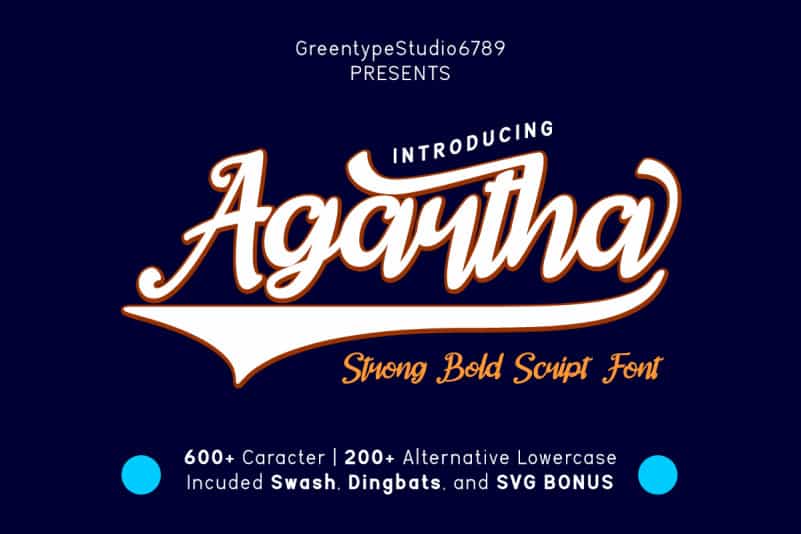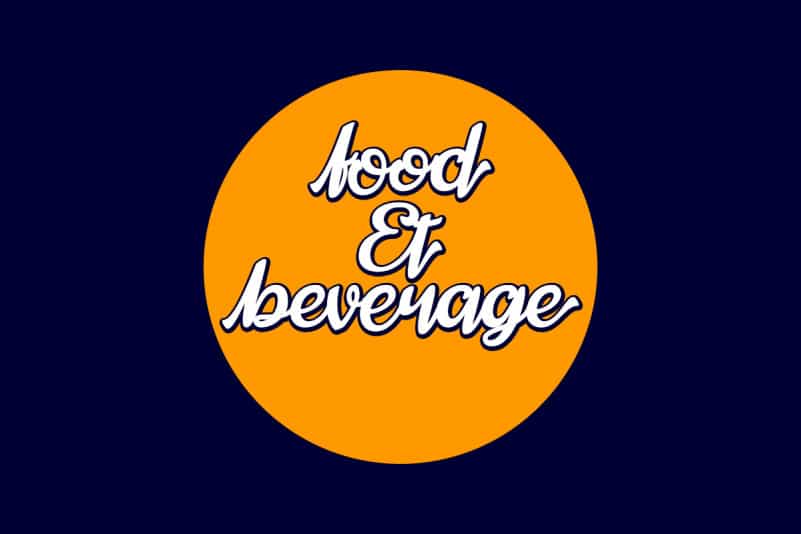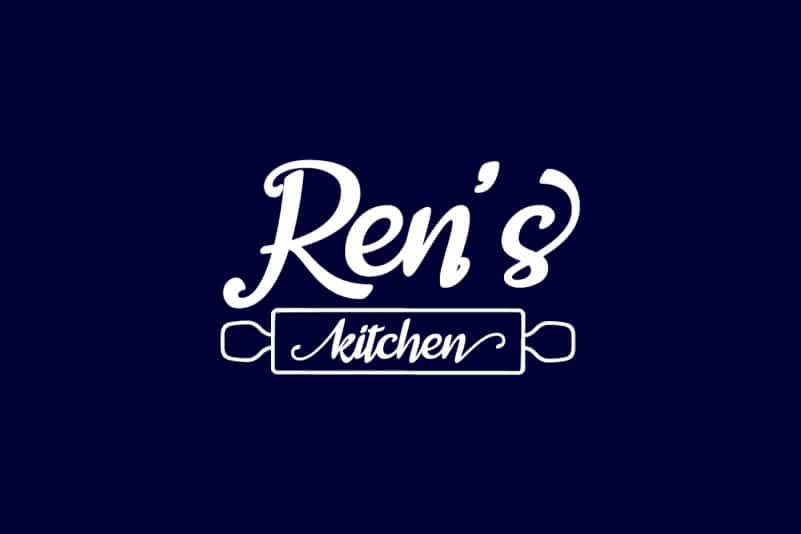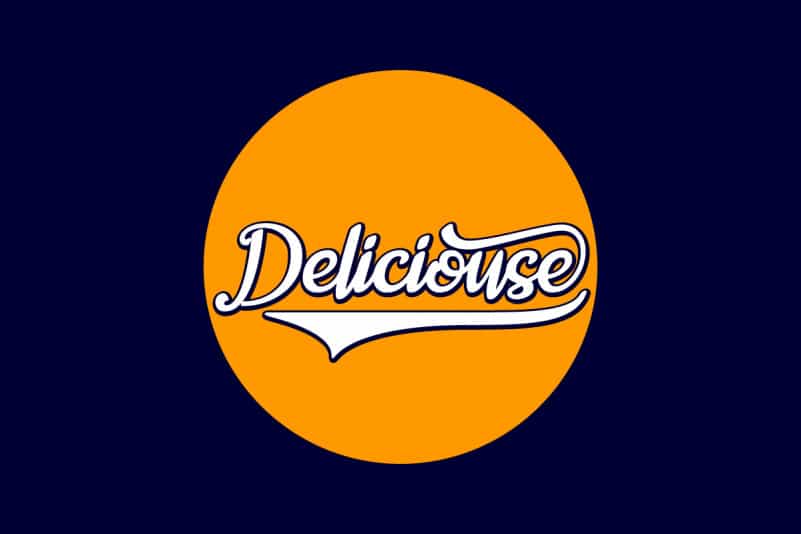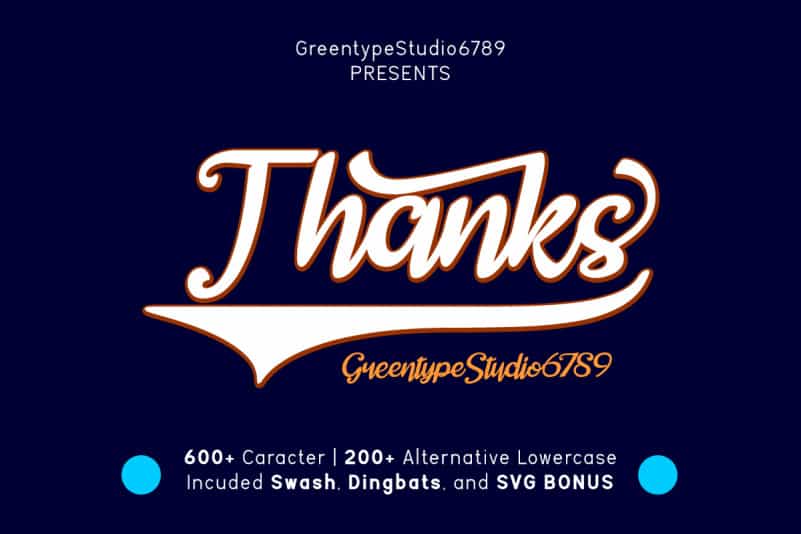
Agartha Script Font is an elegant and timeless handwritten font.
It features a varying baseline, smooth lines, gorgeous glyphs and stunning alternates.
Fall in love with its incredibly versatile style and use it to create spectacular designs